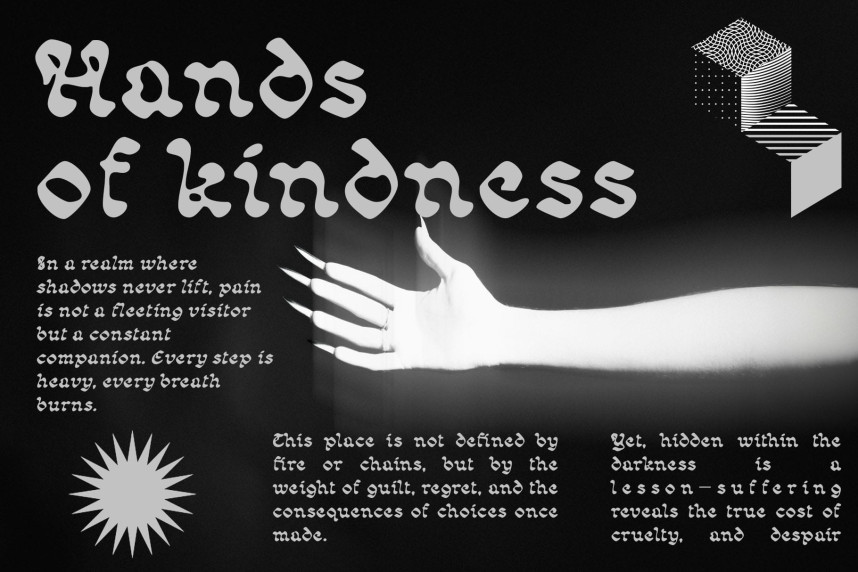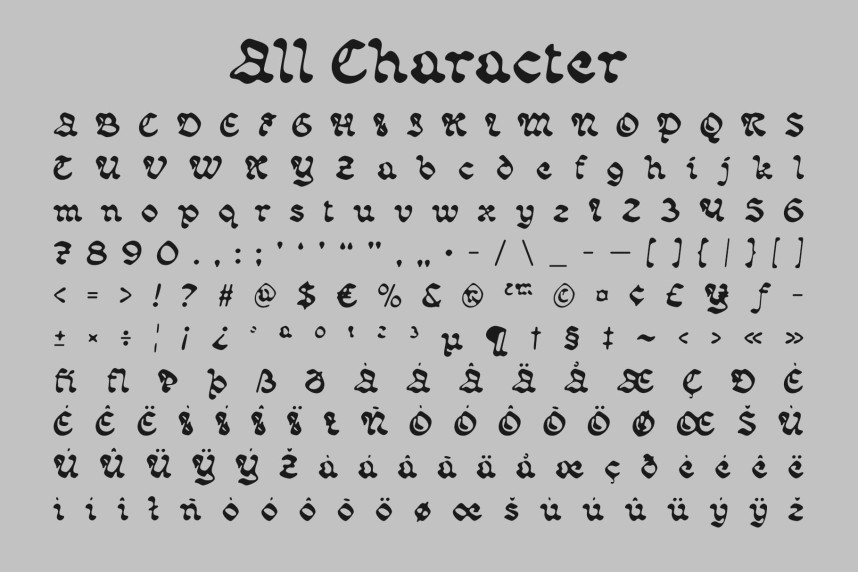
CS Rolins Drawn Font
CS Rolins Drawn Font – this is a decorative Blackletter font defined by bold, dramatic strokes and intricate forms. Rooted in Gothic tradition, it carries an air of mystery and strength, giving any design an imposing and captivating presence.
What makes this font unique is its hand-drawn texture. The natural ink-like strokes add a human touch, softening the rigidity of classic Blackletter and infusing the font with artisanal charm. This handcrafted detail enhances its personality, making it stand out in creative and expressive projects. Whether used for bold party visuals, striking posters, or edgy branding, this font brings a balance of tradition and creativity. Its dramatic shapes ensure impact, while the drawn detailing adds warmth and originality to the design.